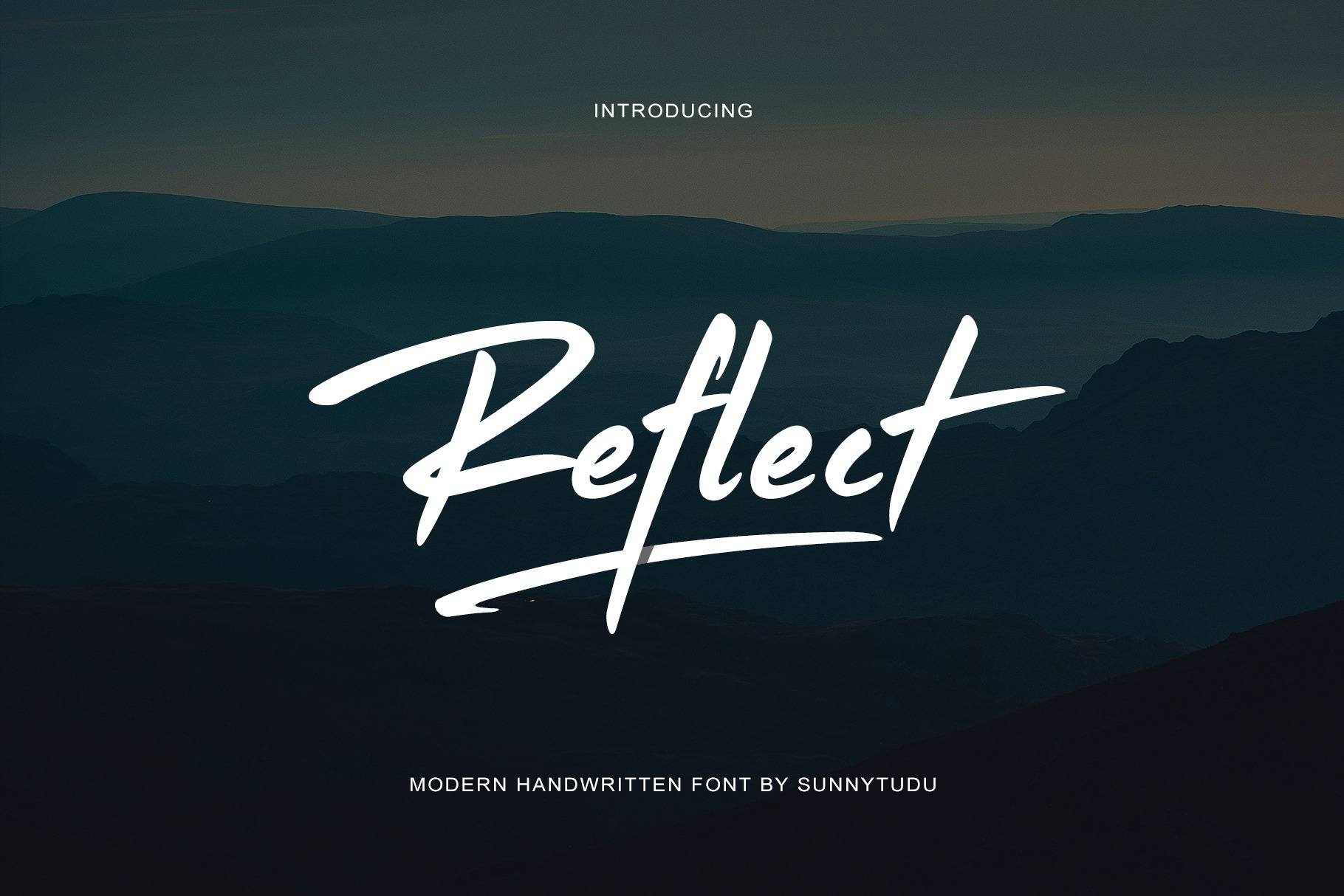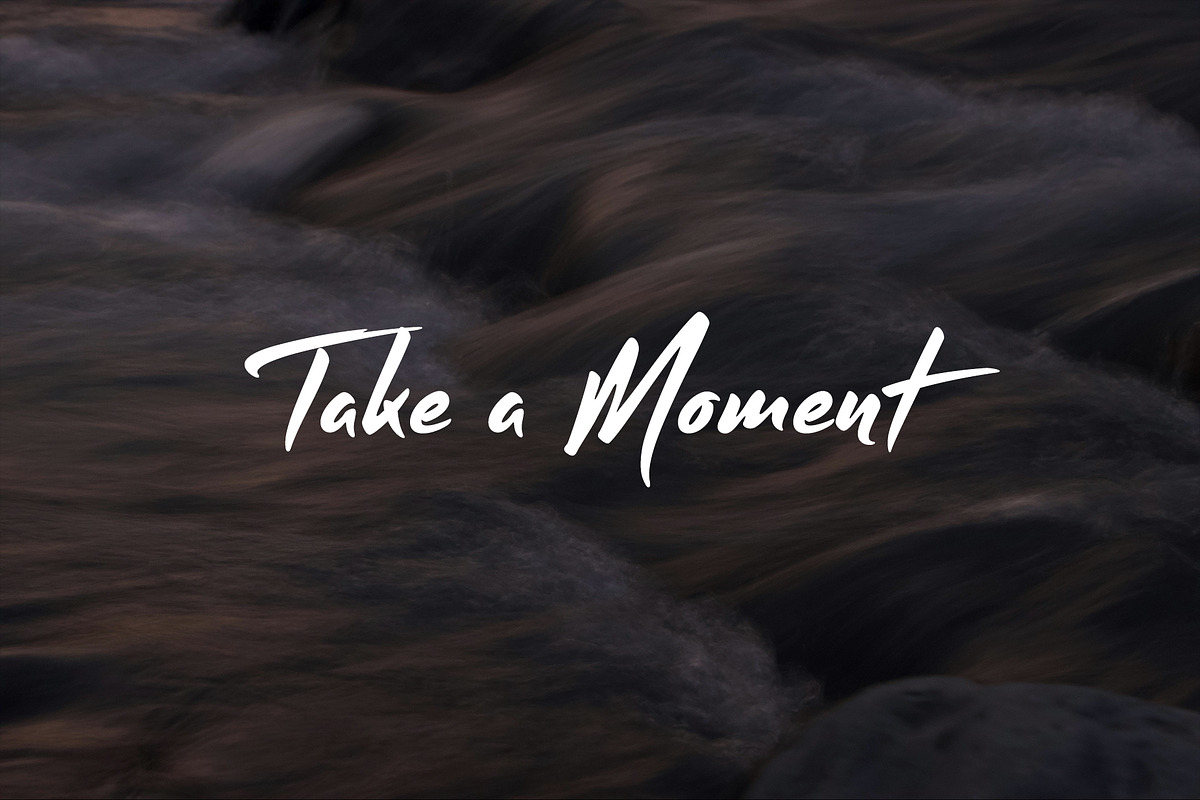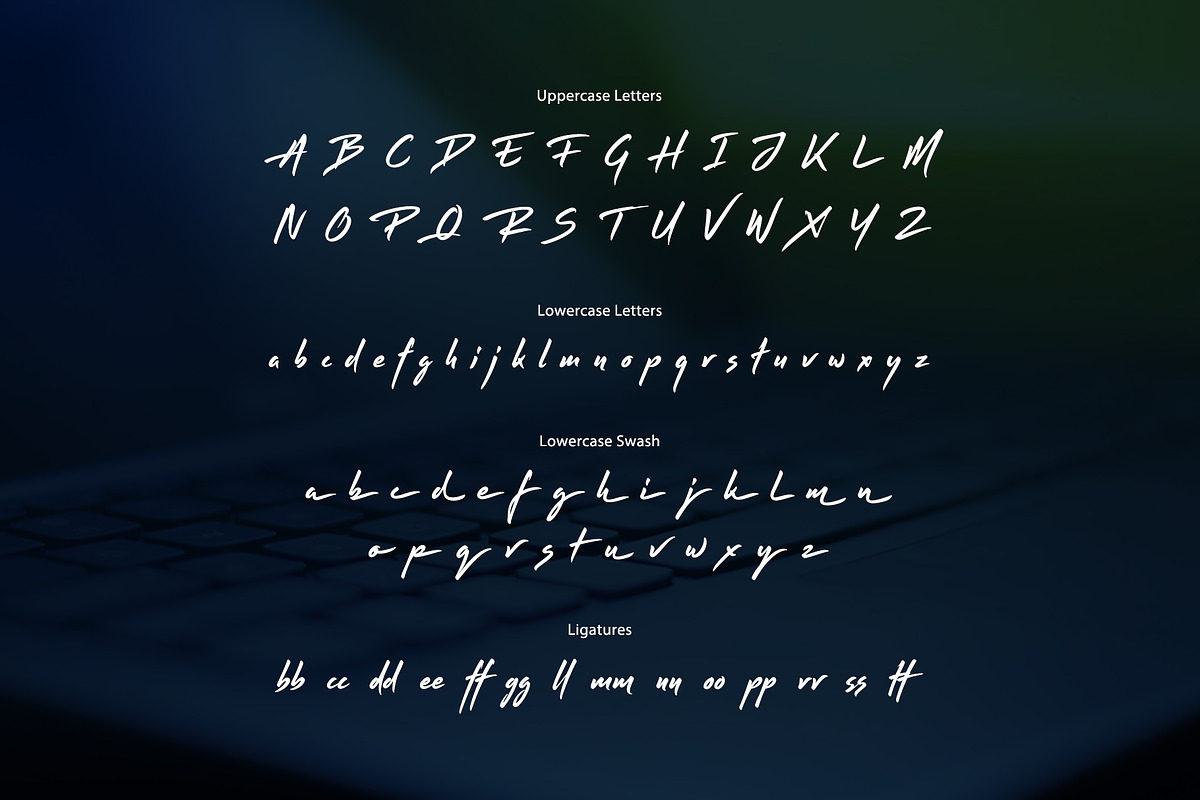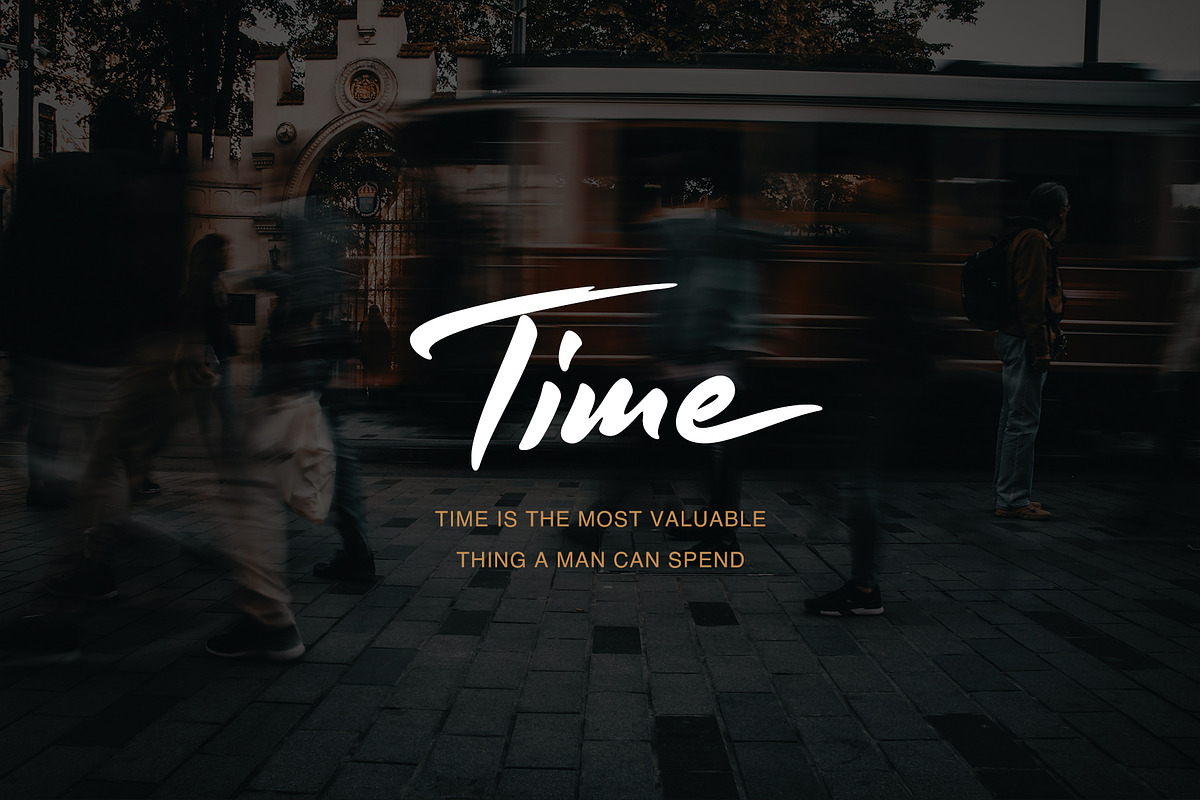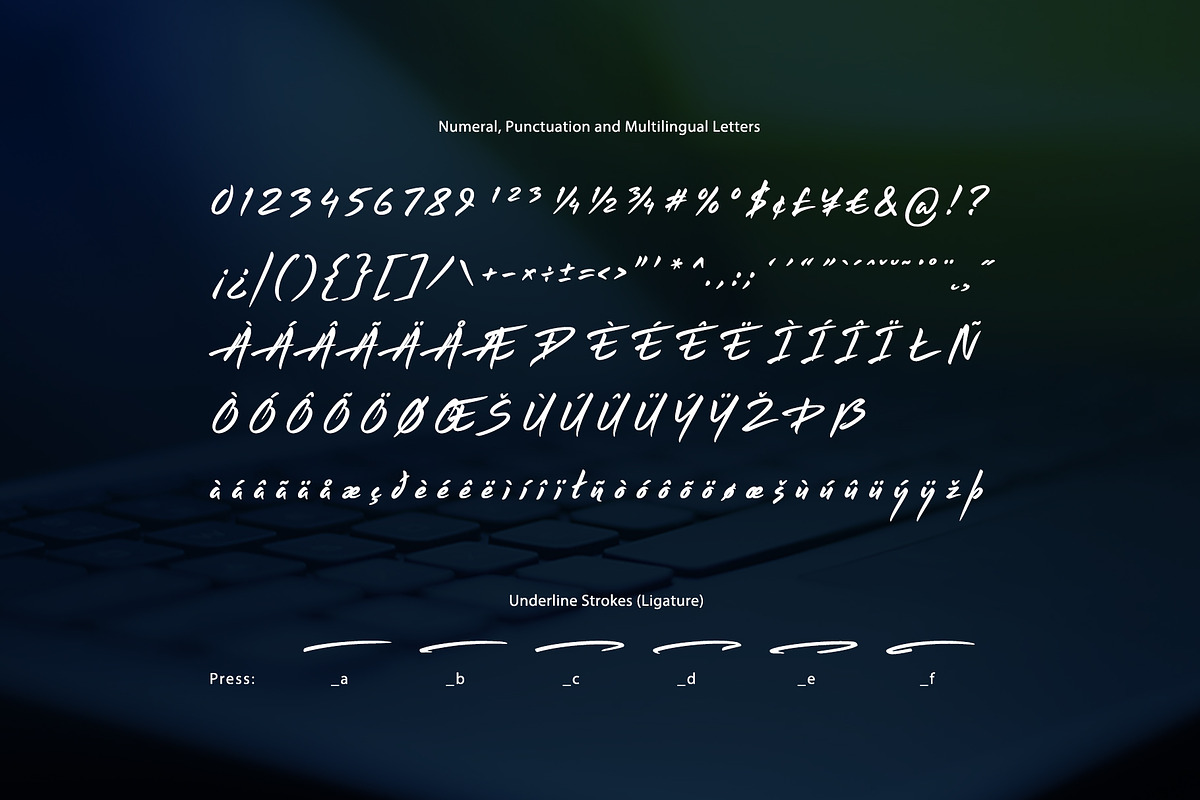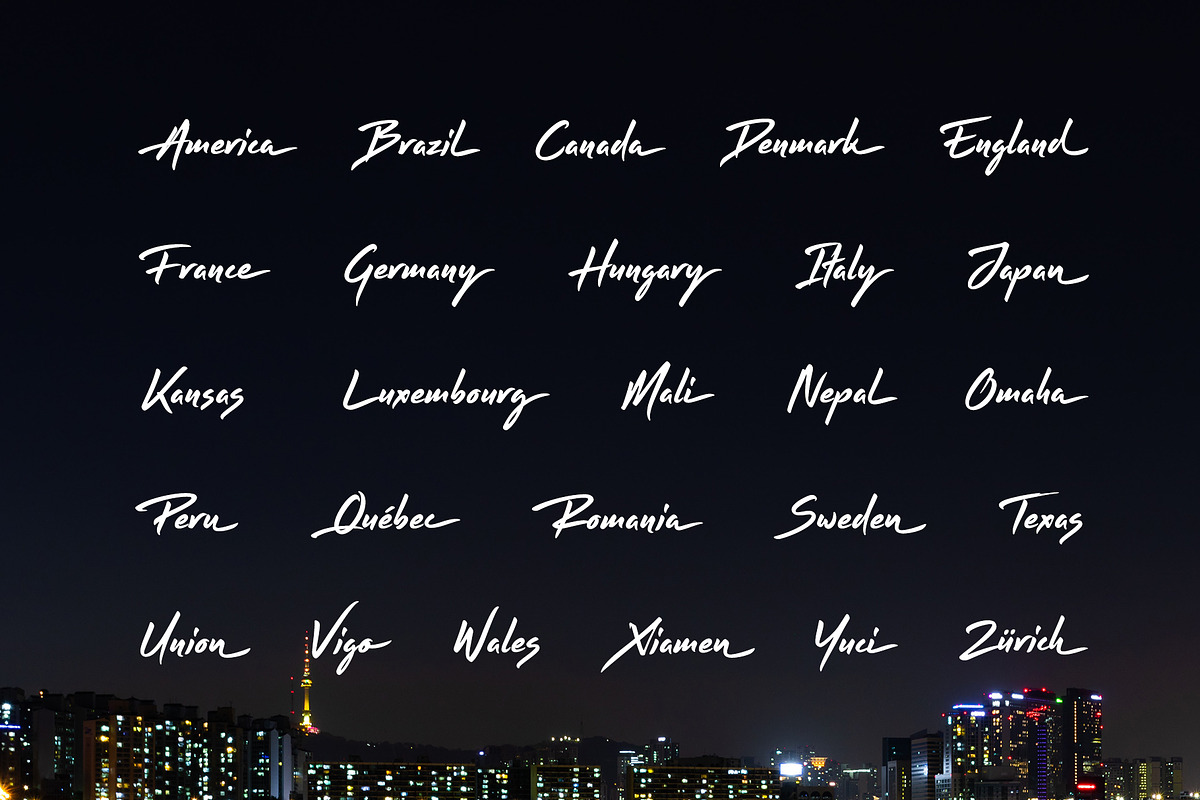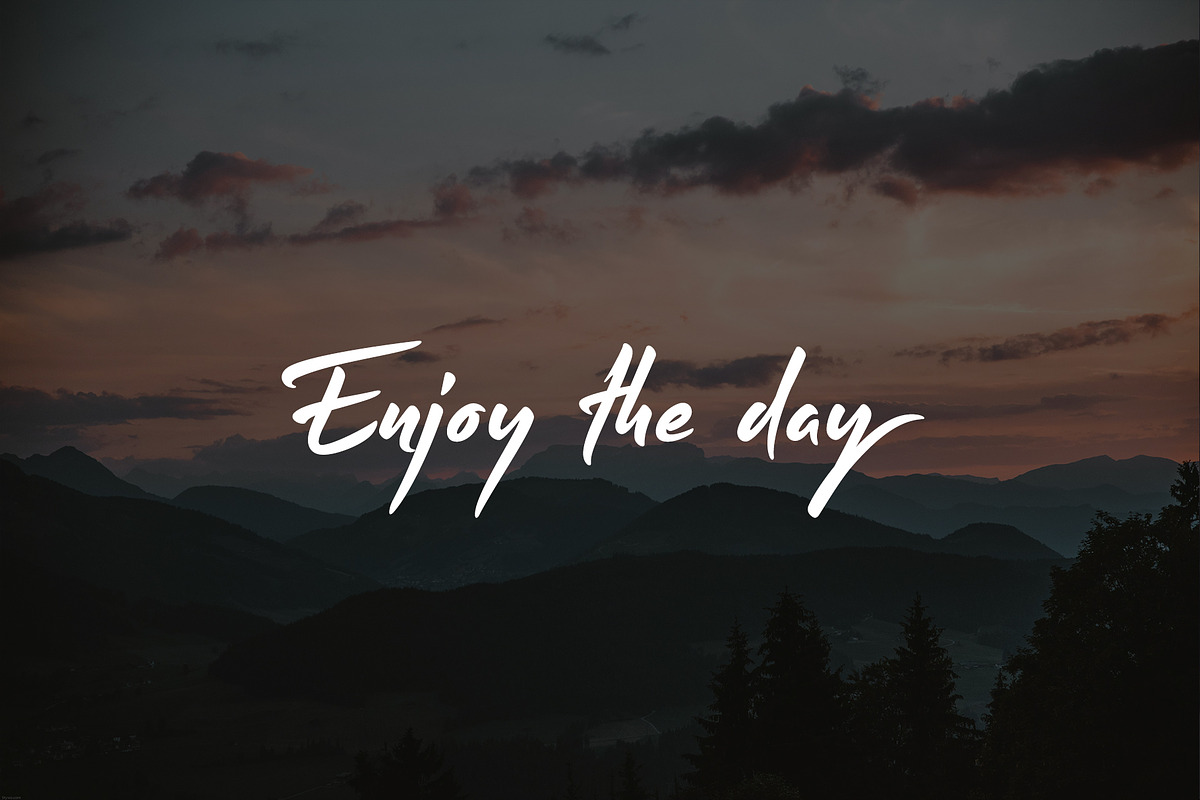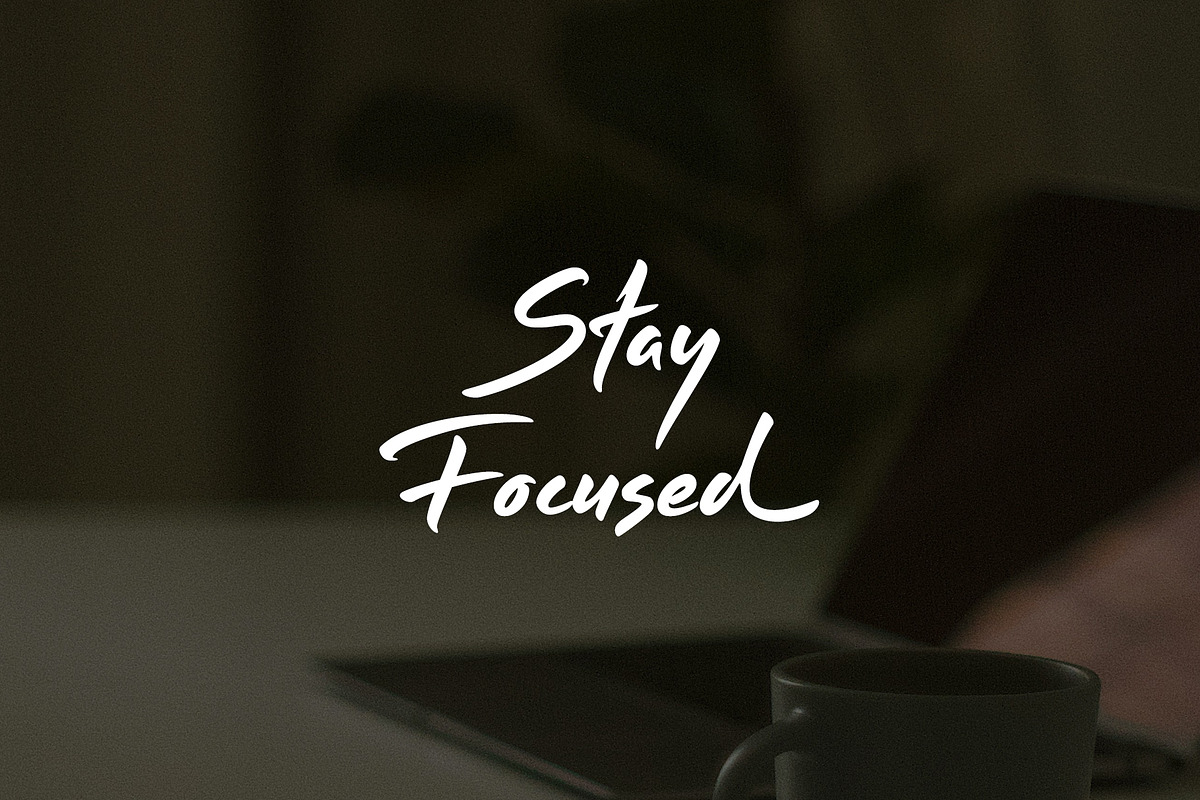
Reflect Handwritten Font
Reflect is a nice handwritten font. It gives a complete authentic feel on your text.
Total 244 glyphs available including alphabets, numerals, punctuation, ligature, lowercase swash and multilingual characters.